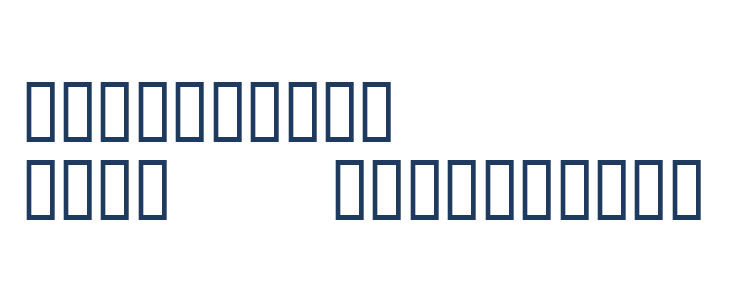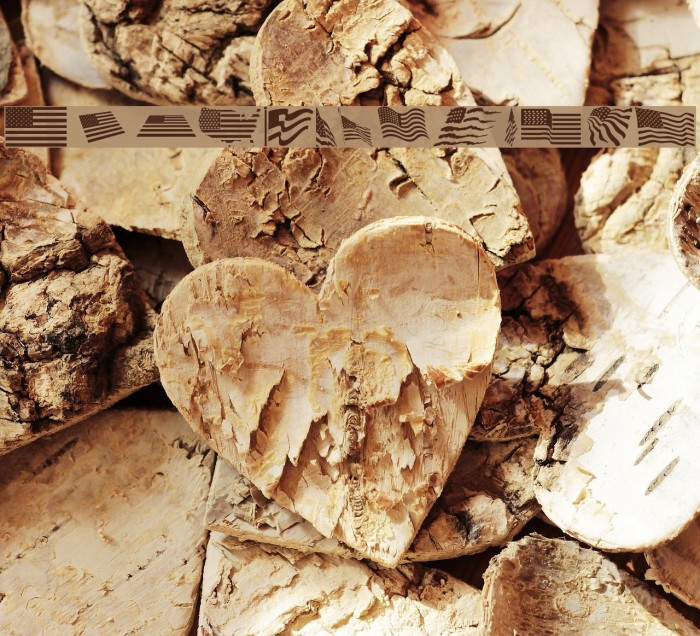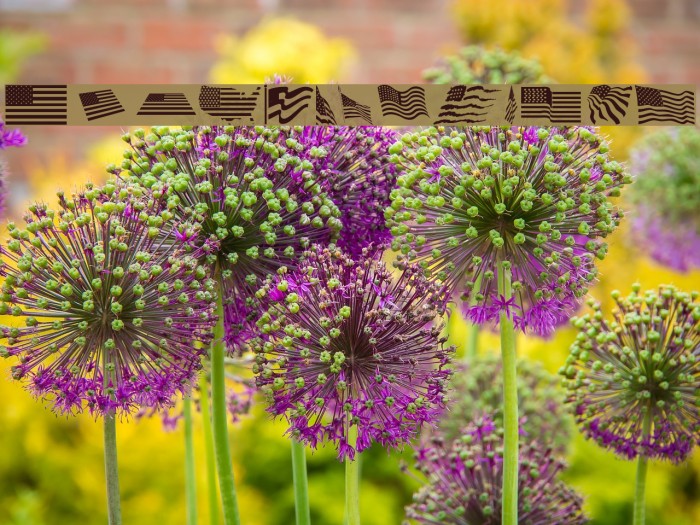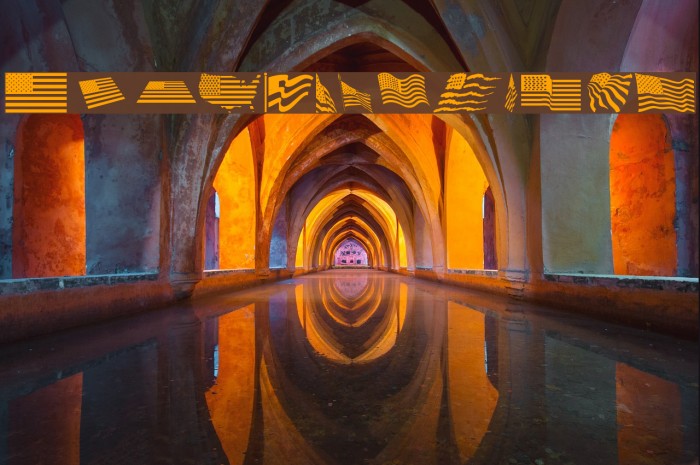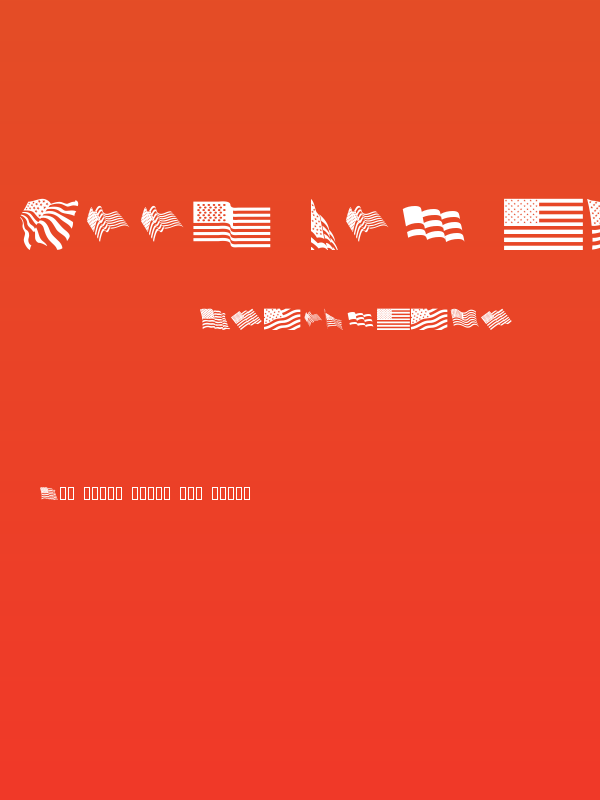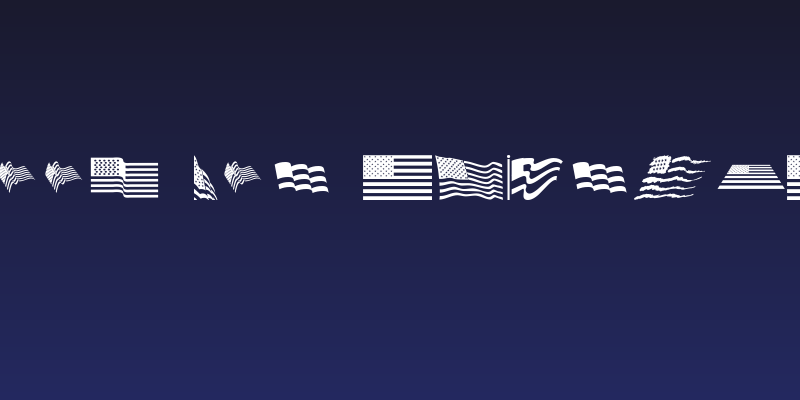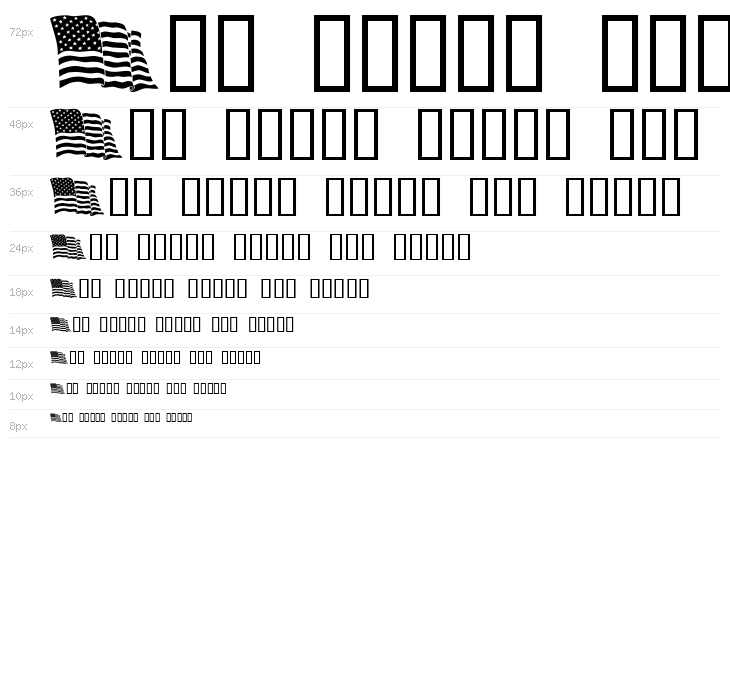
Look for America Font
Look for America Description
This decorative font features stylized representations of the American flag, with each character designed to resemble a waving flag. The intricate details capture the movement and texture of fabric, creating a dynamic and patriotic aesthetic. The font is highly thematic, focusing on the iconic stars and stripes, making it ideal for projects that require a strong American theme. Each letter is unique, reflecting different angles and waves of the flag, which adds to the visual interest and complexity. The font is not suitable for body text due to its decorative nature but excels in creating impactful headlines or thematic designs.
| Proposed Projects | Ideal for patriotic designs, event posters, themed merchandise, or any project celebrating American culture and history. |